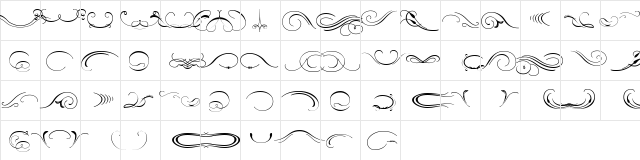
OrnamentScrollsAndFlorishes Regular
Design Context for OrnamentScrollsAndFlorishes Typeface
OrnamentScrollsAndFlorishes is built around its visual character rather than neutral utility — its distinctive forms are designed to make an impression at display sizes.
Font Pairing: Pair with a clean neutral sans-serif for body copy to let OrnamentScrollsAndFlorishes's character lead without overwhelming the composition.
Pro Tip: Use OrnamentScrollsAndFlorishes exclusively at display sizes — it was designed to be seen, not read at length. Let a neutral companion handle body copy.